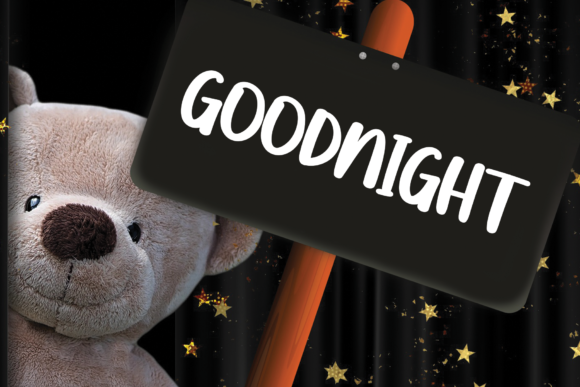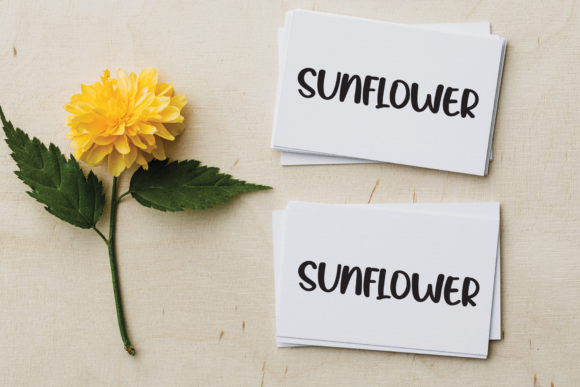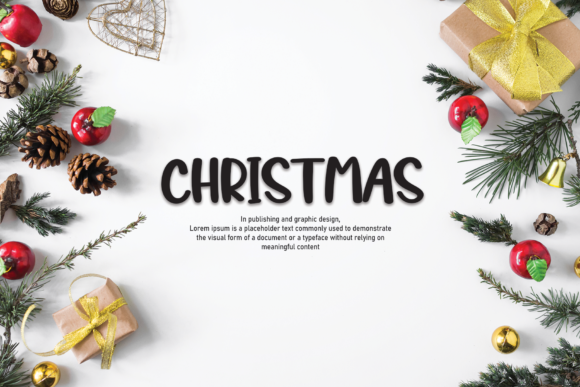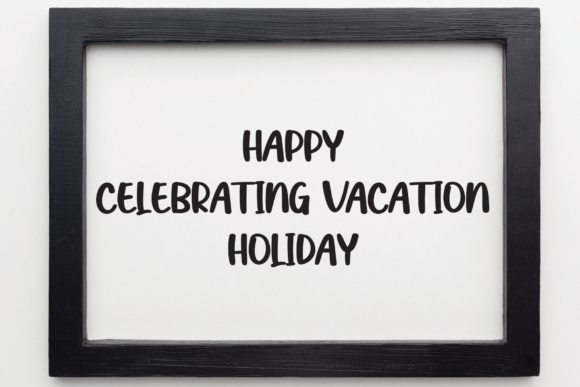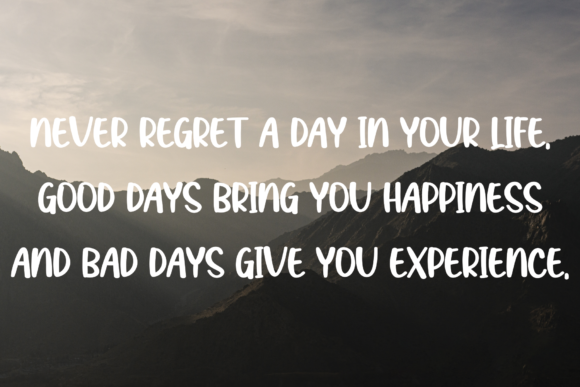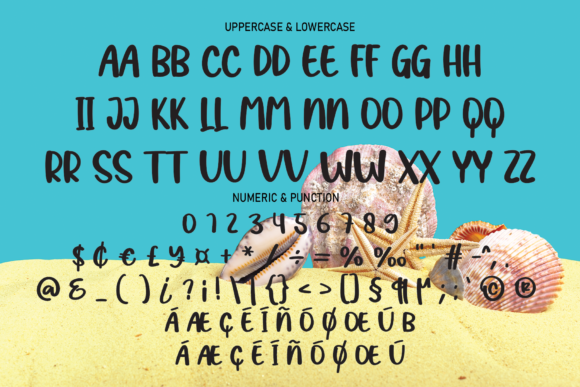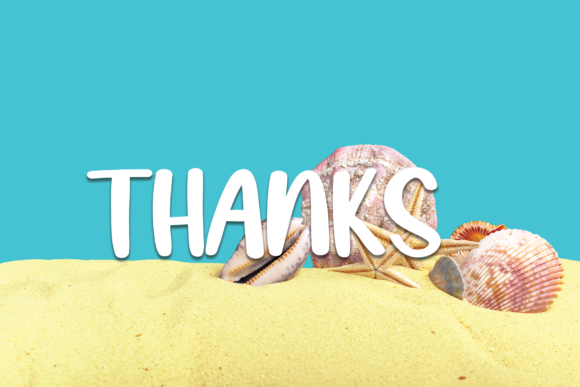
Sea Shells Font
About Sea Shells Font
“Sea Shells” presents itself as a playful and stylish font infused with a youthful spirit. This font is a versatile choice that caters to both professional-looking projects and casual designs, offering a wide range of applications from branding to packaging, posters to social media posts, and more.
The playful and stylish nature of “Sea Shells” is a key feature that adds a lively and energetic vibe to any design it graces. The font’s youthful spirit makes it particularly suitable for projects that aim to convey a dynamic and contemporary aesthetic. Whether used in branding designs, labels, websites, or business cards, “Sea Shells” promises to inject a sense of playfulness.
In professional-looking projects, “Sea Shells” maintains a stylish and modern appearance. Its clean lines and well-crafted characters contribute to a polished and sophisticated look, ensuring that it adapts seamlessly to branding and business-related designs. The font’s versatility allows it to convey professionalism while retaining a touch of youthfulness.
For more casual designs, such as packaging, posters, flyers, quotes, social media posts, invitations, and special occasions cards, “Sea Shells” becomes a go-to option. Its playful elements and stylish demeanor make it an engaging choice for projects that seek to resonate with a diverse and vibrant audience.
The adaptability of “Sea Shells” extends its appeal to a broad range of design contexts, making it a font that suits various purposes. Its youthful spirit brings a fresh and contemporary feel, ensuring that the font stands out in both professional and casual settings.
In summary, “Sea Shells” stands out as a playful and stylish font that seamlessly balances a youthful spirit with a modern aesthetic. Its versatility makes it an excellent choice for a diverse array of design projects, promising to add a touch of energy and creativity to any application.